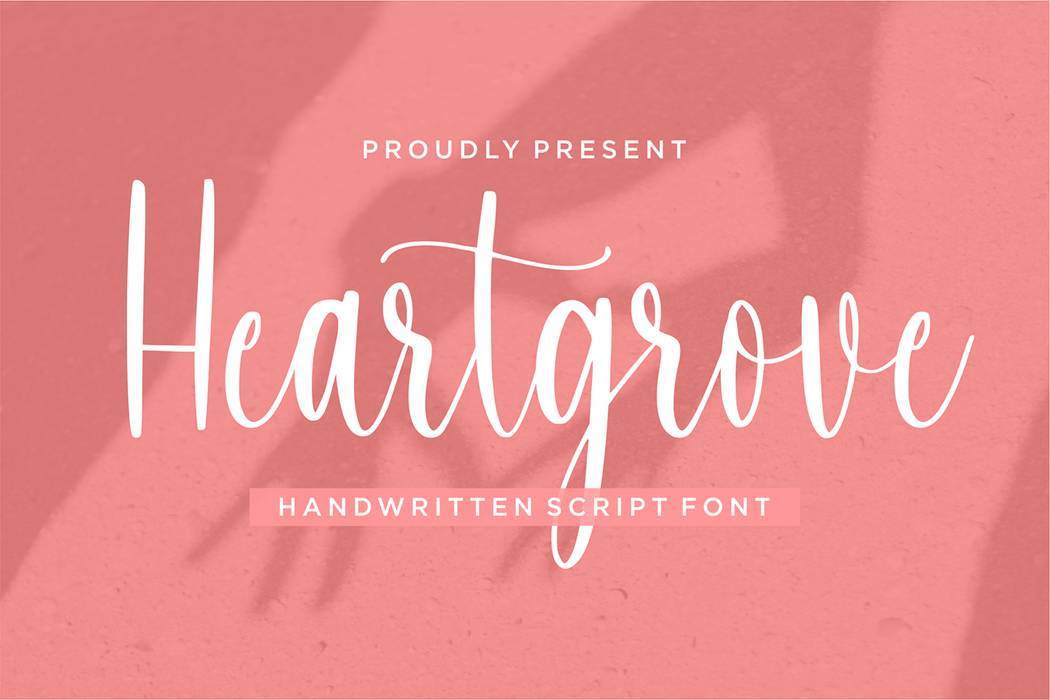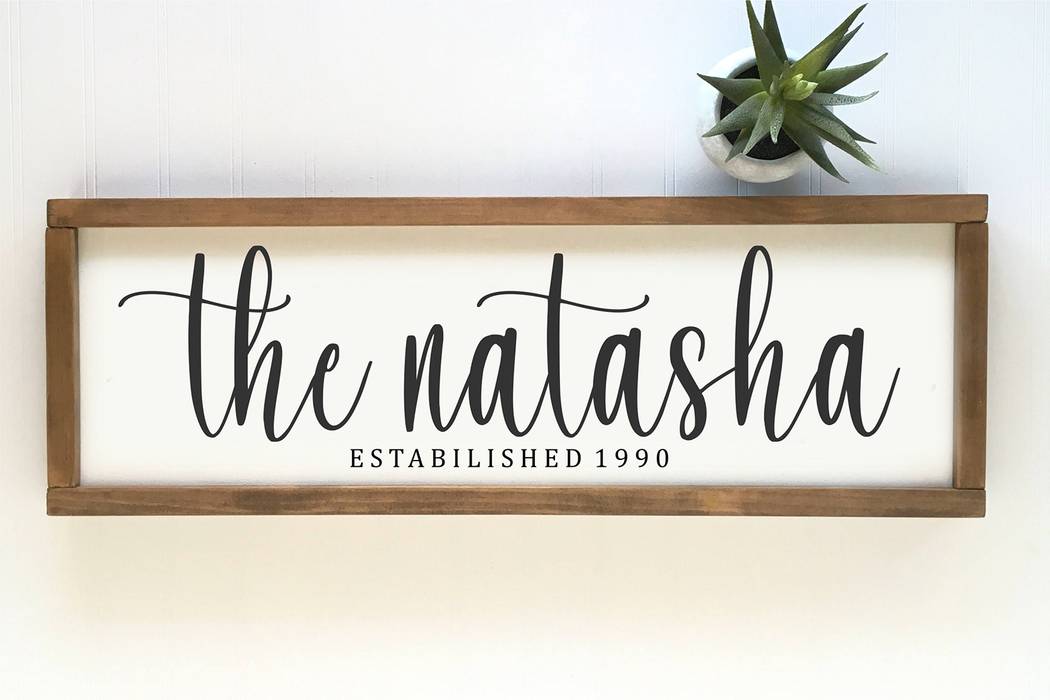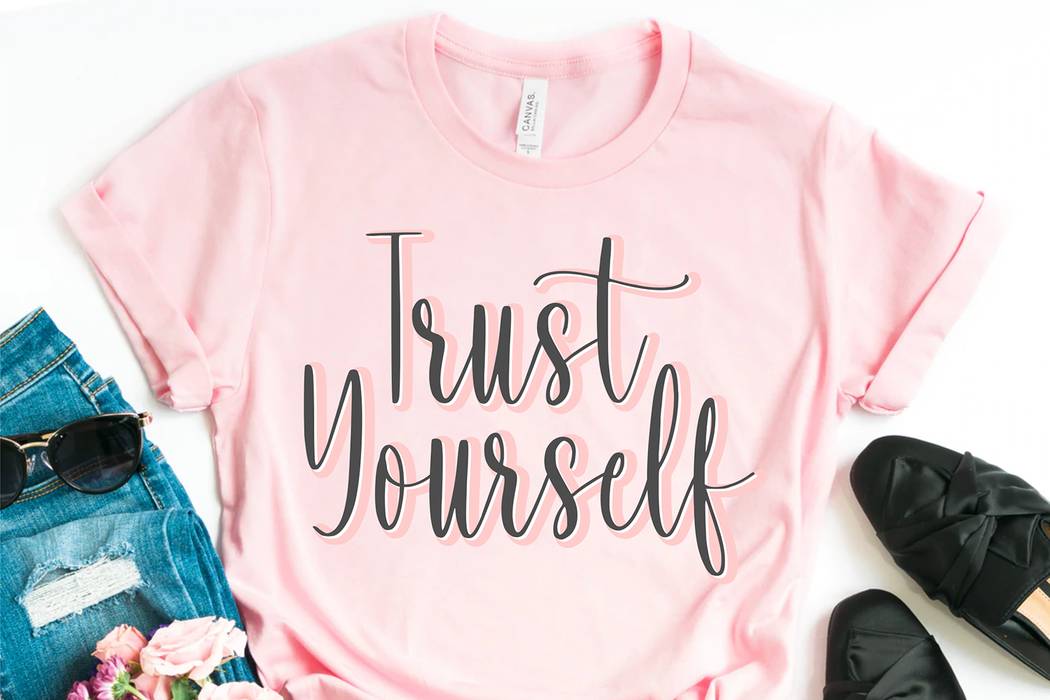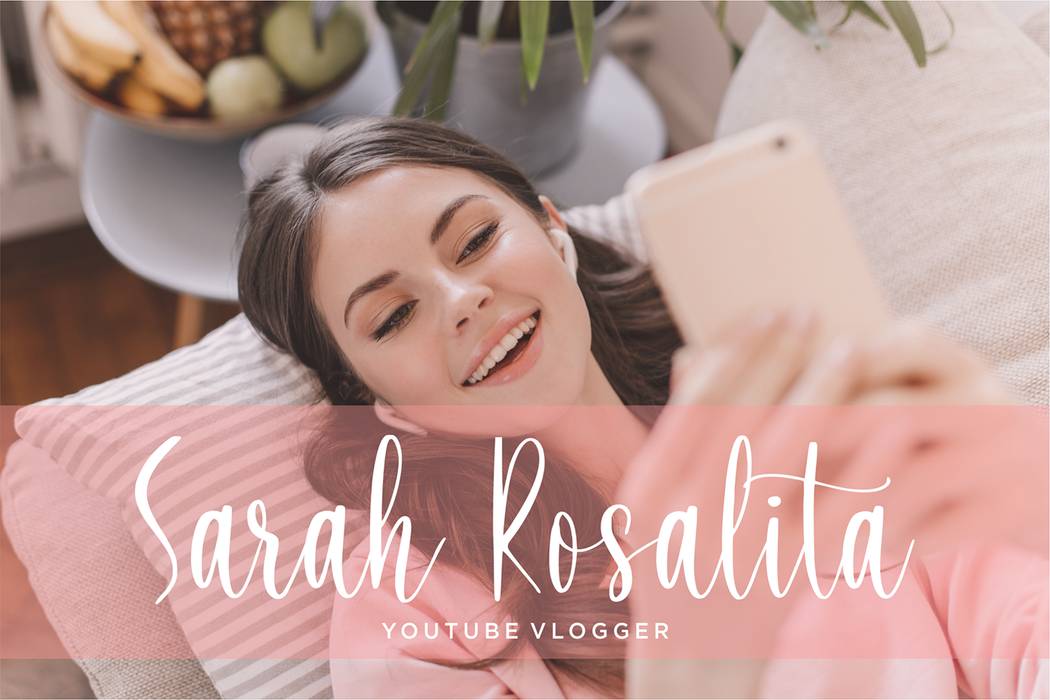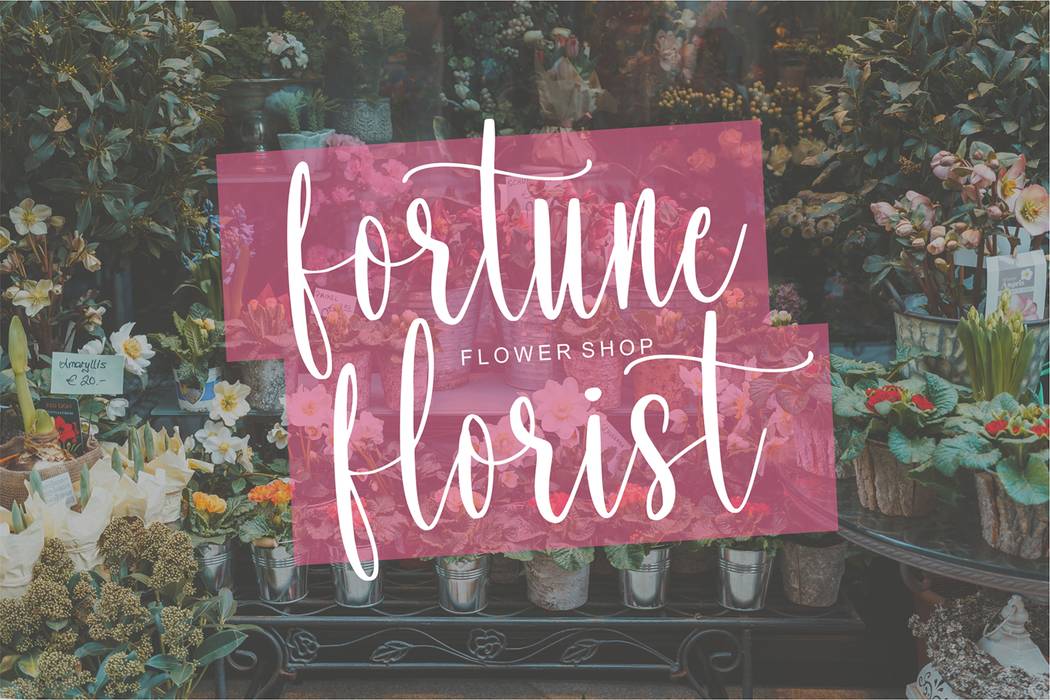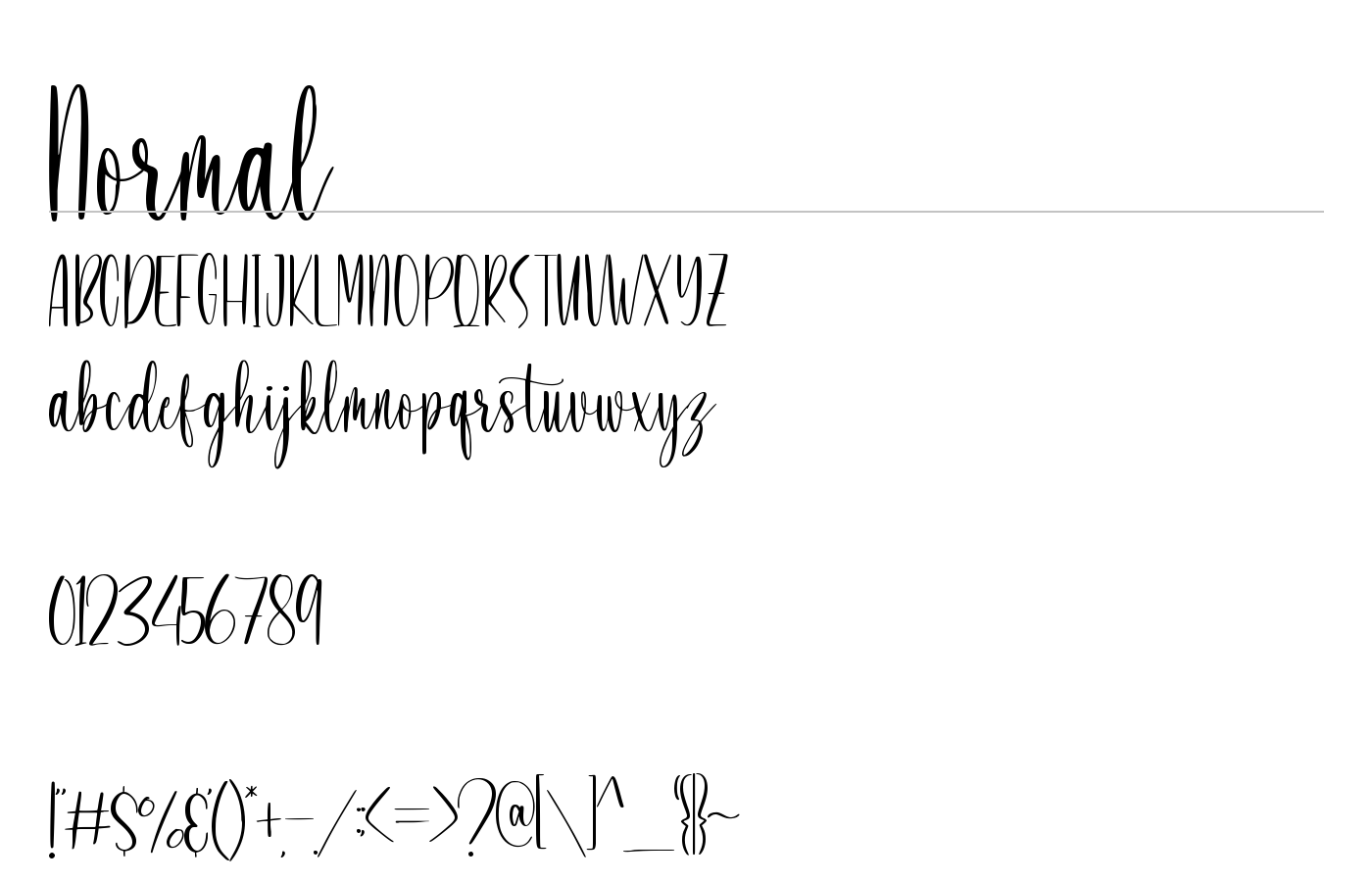
Heartgrove is a slender, whimsical script font with a tall, narrow design that feels light and airy. Its thin, flowing strokes and playful letterforms give it a graceful yet informal personality, making it perfect for creative projects that need a delicate, hand-drawn touch. This font works beautifully for invitations, logos, and branding where a charming, elegant, and friendly vibe is desired.
Heartgrove Font
About Heartgrove Font